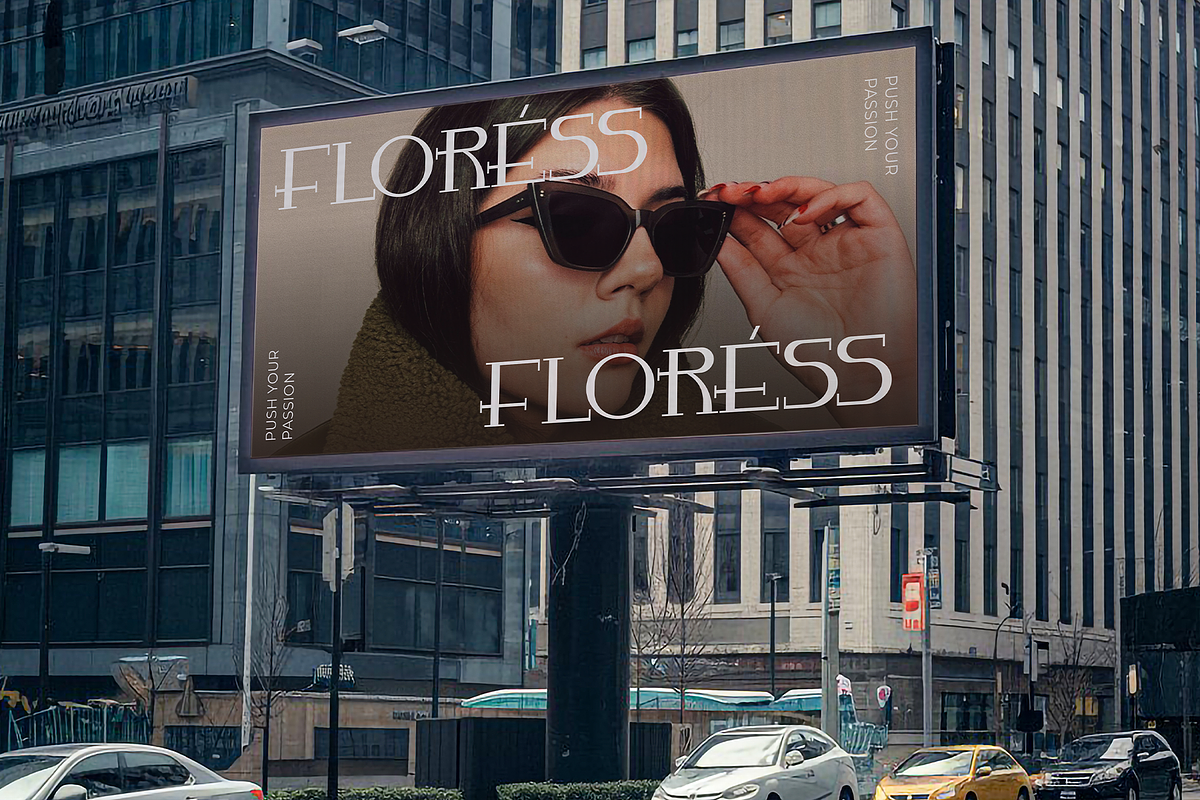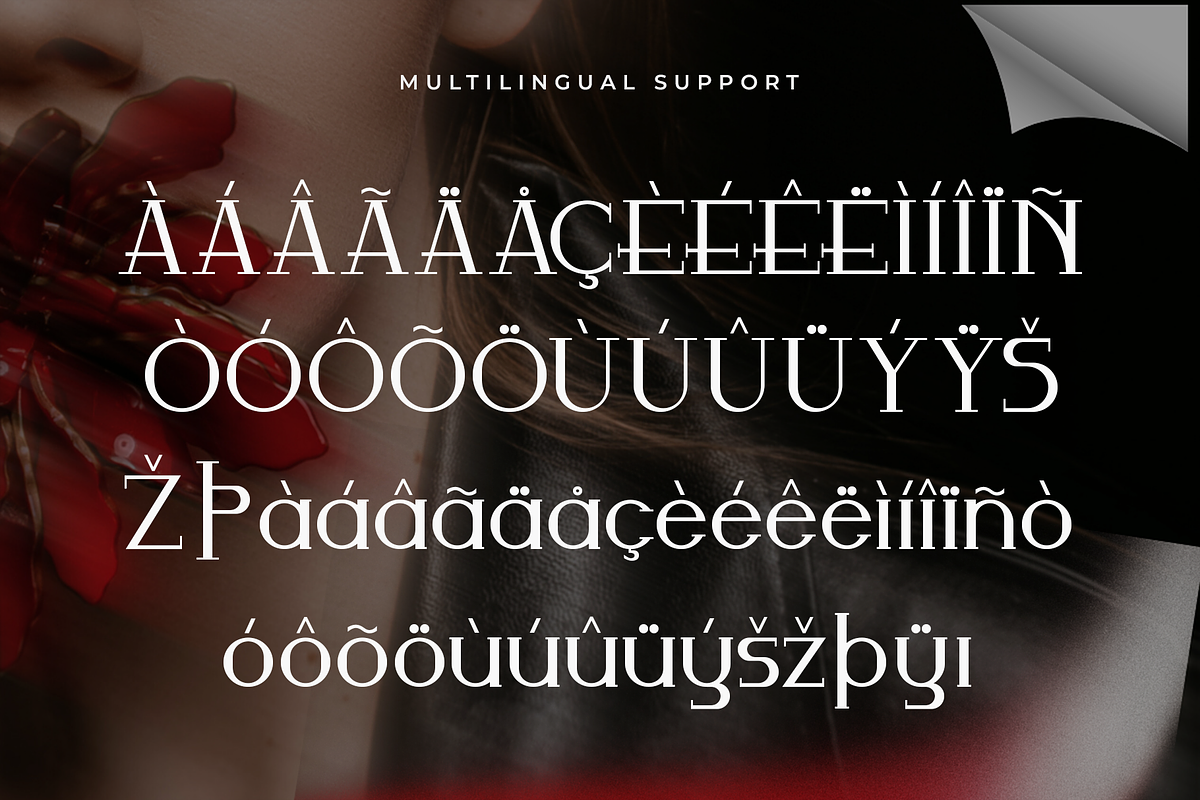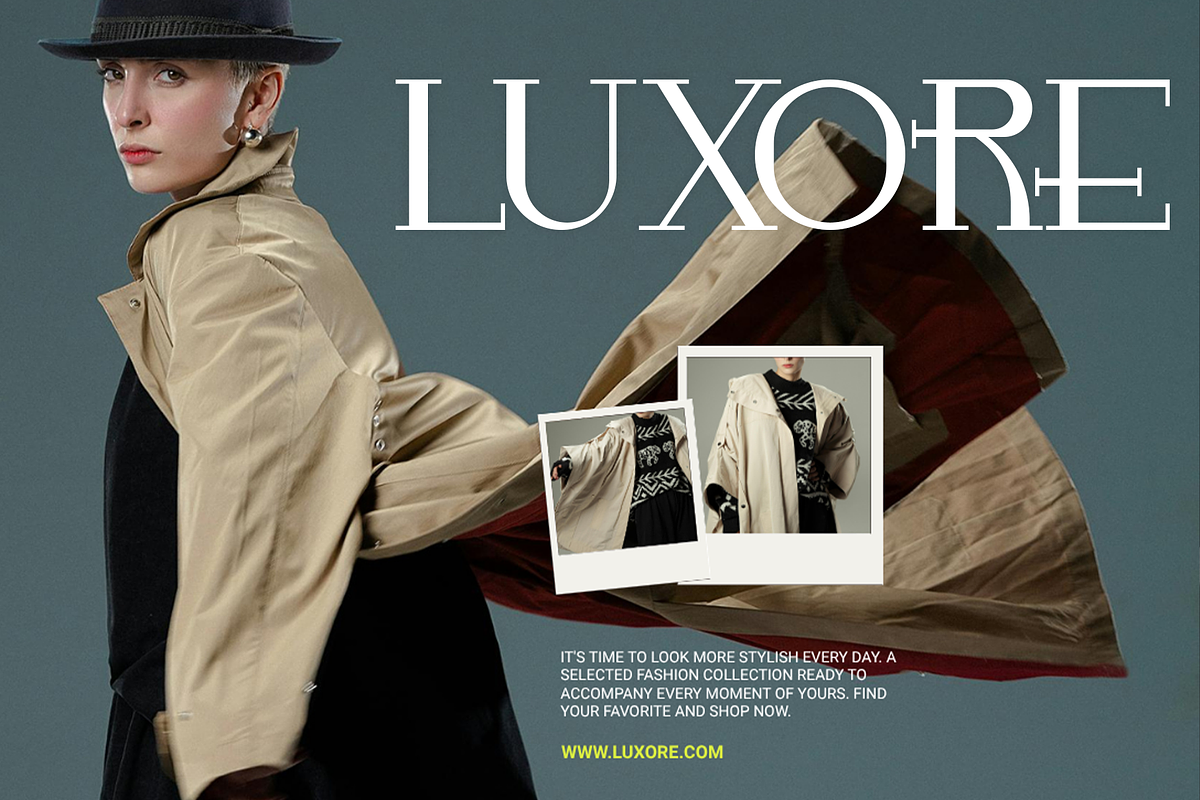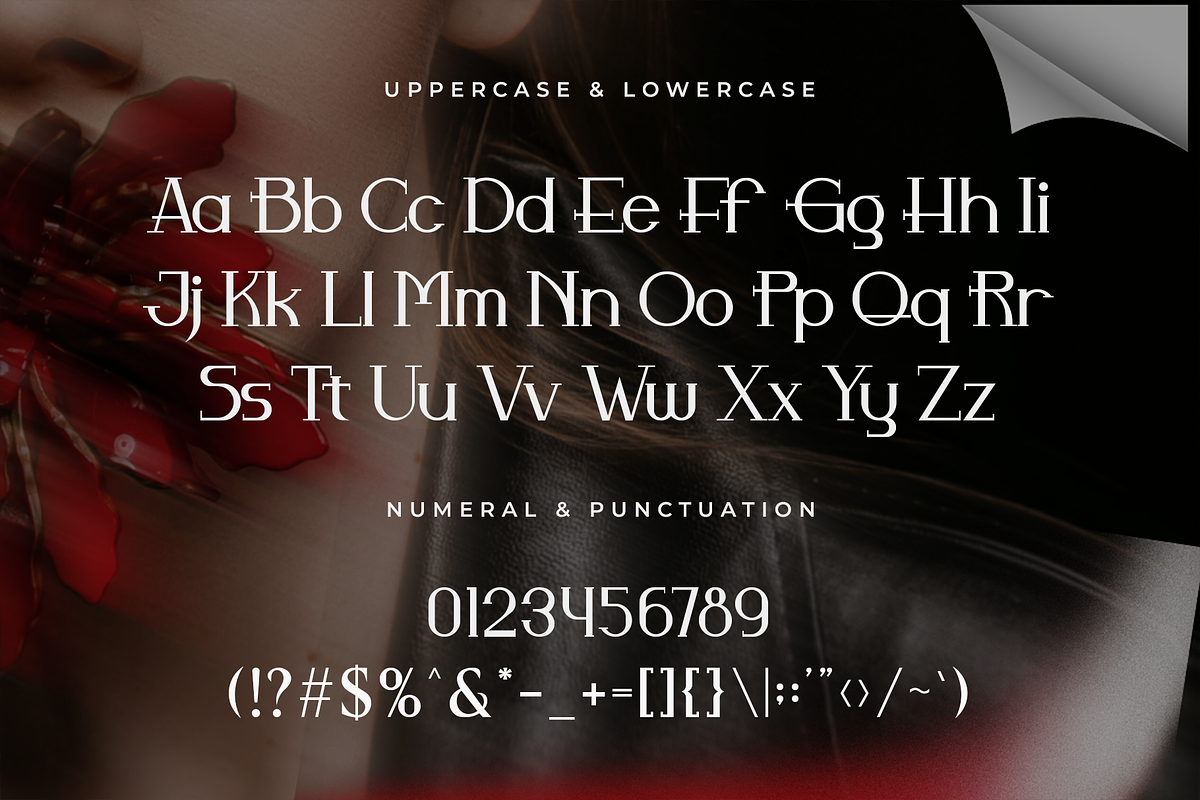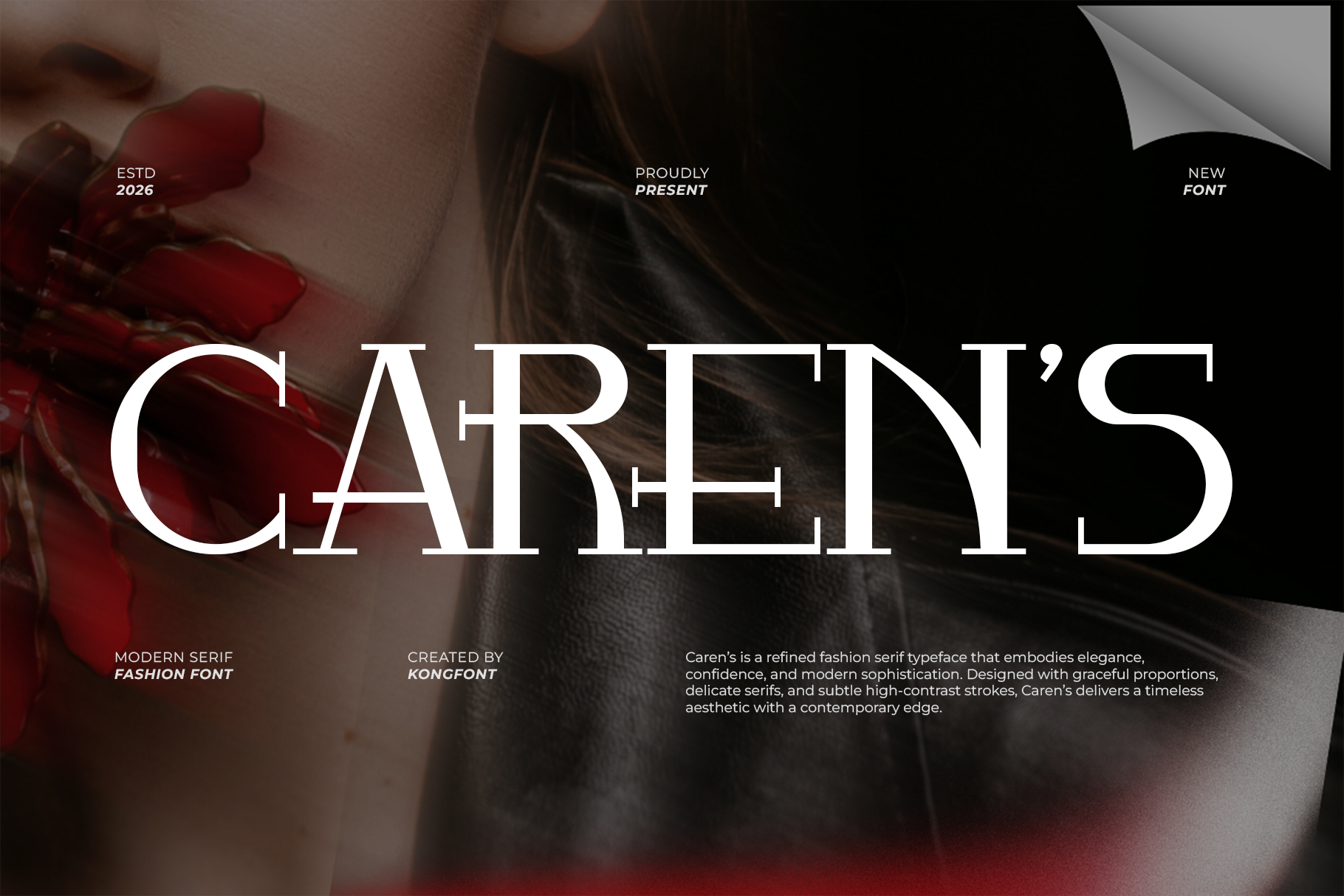
Caren’s – Serif Typeface
Caren’s is a serif typeface designed to deliver a perfect balance between classic tradition and modern readability. With its refined serifs, smooth proportions, and clean structure, Caren’s offers a versatile typographic solution suitable for both professional and creative projects.
This typeface includes uppercase and lowercase letters, numerals, punctuation, and multilingual support, ensuring flexibility across print and digital applications.
Bring timeless professionalism to your typography with Caren’s a serif typeface built for clarity, elegance, and versatility.